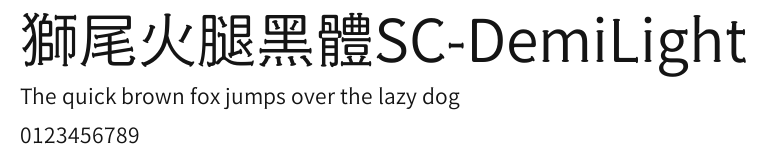
獅尾火腿黑體SC-DemiLight Preview
• Font Name: 獅尾火腿黑體SC-DemiLight
• Font Style: DemiLight
• Full Font Name: 獅尾火腿黑體SC-DemiLight
About 獅尾火腿黑體SC-DemiLight.ttf
獅尾火腿黑體SC-DemiLight.ttf is a modern, elegant sans-serif font designed for ultimate readability and visual harmony. Perfect for branding, headlines, web design, and print materials.